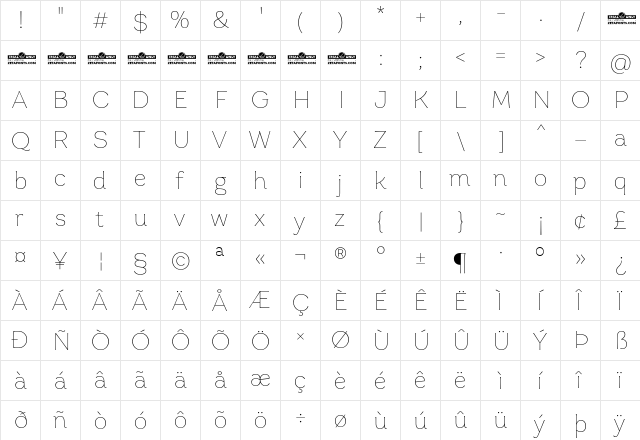
Garbata Trial Thin
| Foundry | Zetafonts |
| Designer | Francesco Canovaro, Debora Manetti |
Design Context for Garbata Trial Typeface
Garbata Trial takes a measured approach to typography — its balanced proportions and neutral character make it a reliable workhorse for both digital and print work. Its slender proportions lend an understated elegance to any composition.